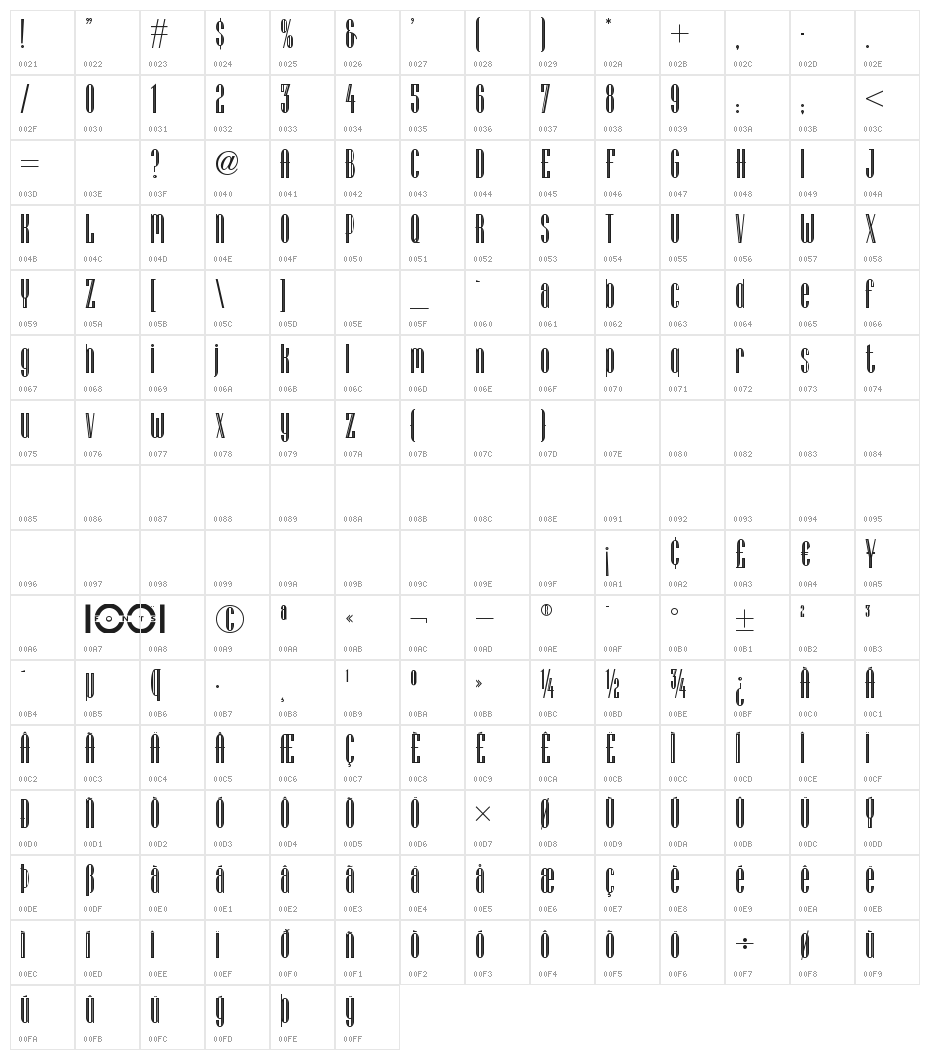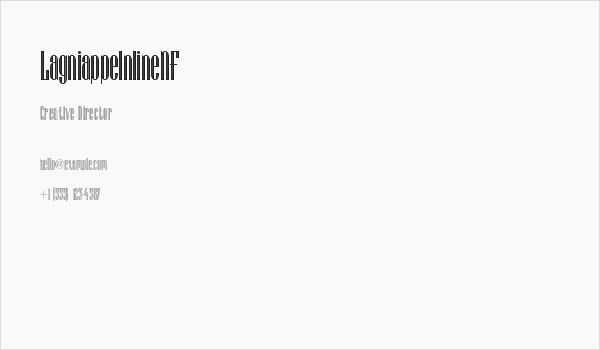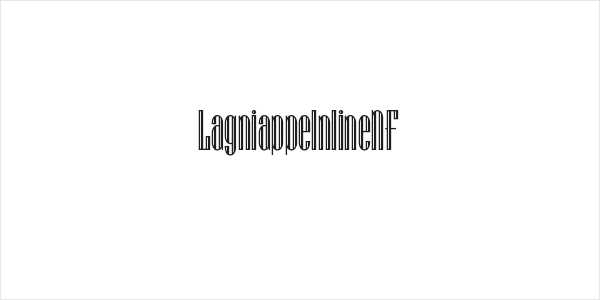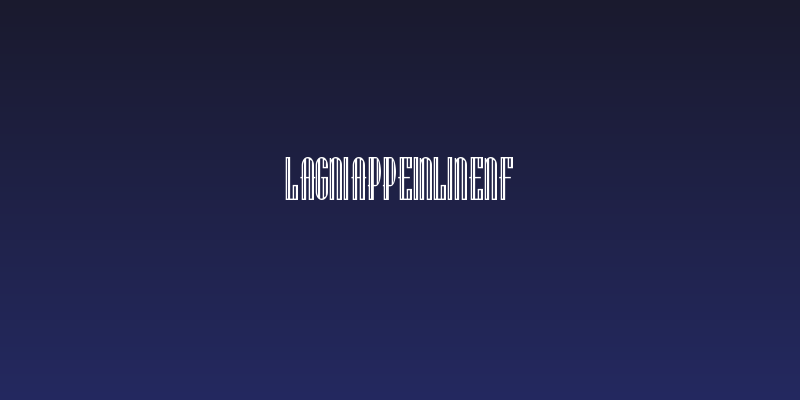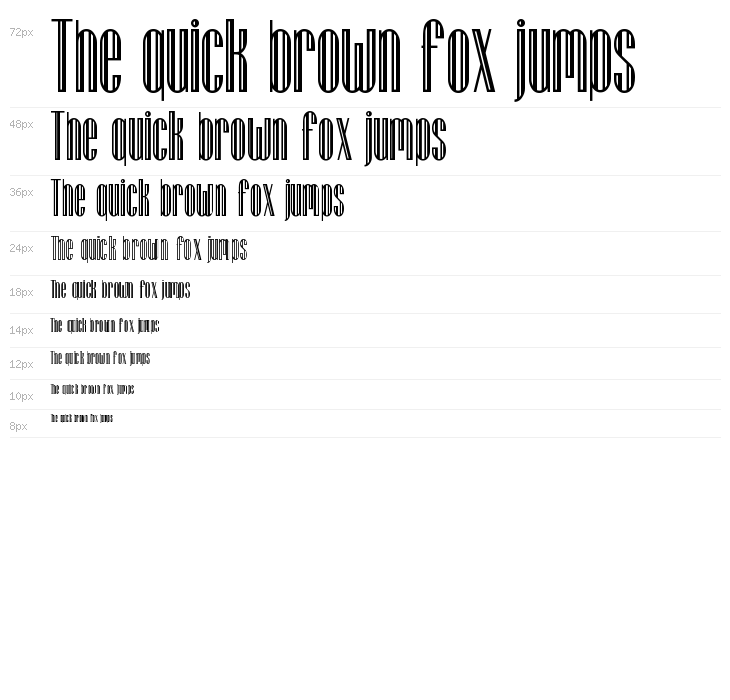
LagniappeInlineNF Font
LagniappeInlineNF Description
This font features a striking and elegant design with tall, narrow letterforms that are accentuated by thin inline details. The vertical emphasis is pronounced, giving it a sophisticated and modern appearance. The uppercase letters are particularly elongated, while the lowercase letters maintain a consistent style that complements the overall aesthetic. The numerals and special characters follow the same design principles, ensuring a cohesive look across all glyphs. The font's unique style makes it stand out, ideal for projects that require a touch of elegance and modernity.